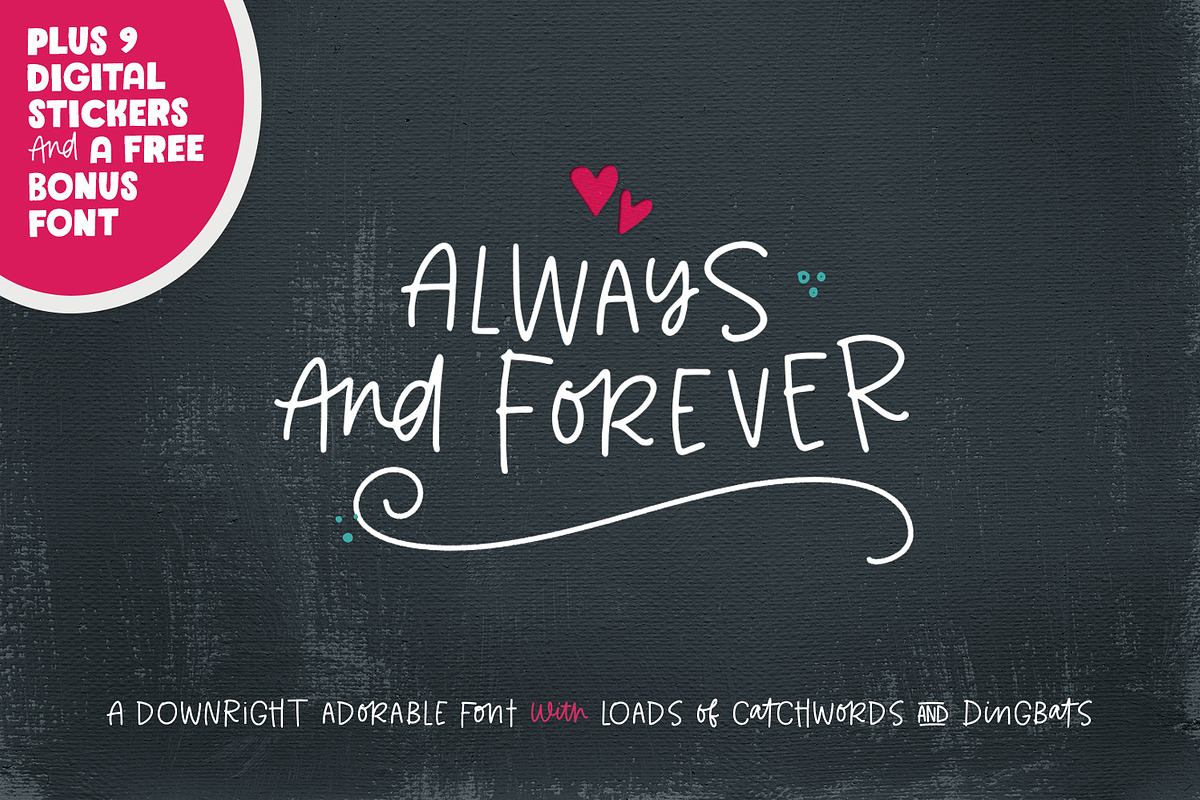
The Always & Forever Type + Dingbats Free Download is a charming and versatile font that combines elegant script lettering with whimsical decorative dingbats. This unique font is perfect for creating romantic designs, wedding invitations, greeting cards, and more. The elegant script brings a touch of sophistication, while the playful dingbats add a fun and creative flair to your typography. Please note, for commercial use, a license purchase is required. However, you can easily download the Always & Forever Type + Dingbats Free Download for free for personal use and explore its possibilities. Whether you're designing for weddings, love-themed events, or simply want to add a special touch to your projects, this font duo will bring your designs to life. Download the Always & Forever Type + Dingbats Free Download today and give your creative work an elegant and playful vibe.